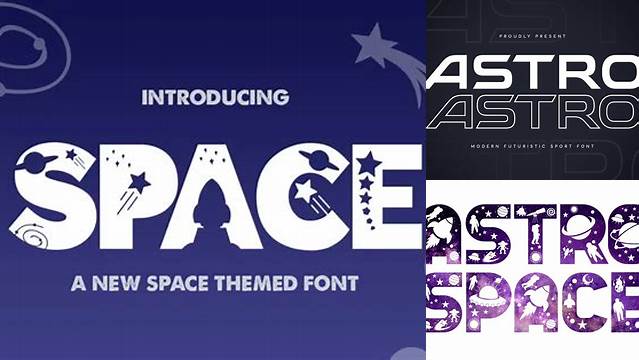
Astro Space Font Family: Free Download For Stellar Designs
Hey design enthusiasts! Are you on the lookout for a font that's out of this world? Look no further! The Astro Space font family is here to take your projects to cosmic heights. This font is not just a typeface; it's a journey through the stars, a visual experience that can transform your designs from ordinary to extraordinary. In this article, we'll dive deep into what makes the Astro Space font family so special, where you can download it for free, and how you can use it to create stunning visuals. So, buckle up and get ready for a stellar adventure in typography!
What Makes the Astro Space Font Family Unique?
When we talk about Astro Space font family, we're not just talking about another font; we're talking about a design tool that brings a unique flavor to your creative projects. But what exactly makes this font family so special? Let's break it down, guys. First off, the design itself is heavily inspired by space and astronomy. Think sleek lines, futuristic curves, and a touch of the unknown – that's Astro Space in a nutshell. It’s like the font designers looked up at the night sky and decided to capture the mystery and beauty of the cosmos in a typeface. This makes it perfect for projects that need a modern, sci-fi, or even a slightly mysterious vibe. Imagine using it for a video game title, a tech startup's website, or even a book cover for a science fiction novel. The possibilities are endless!
But it's not just about the aesthetic appeal. The Astro Space font family often includes multiple weights and styles. This means you're not stuck with just one look. You can play around with bold, italic, and regular versions to create contrast and hierarchy in your designs. This versatility is super important because it allows you to use the font in various contexts, from headlines to body text. You want a font that can adapt to your needs, right? Plus, a well-designed font family pays attention to the details – things like kerning (the spacing between letters) and legibility. Astro Space fonts are usually crafted to ensure they look good and are easy to read, whether they're displayed on a screen or printed on paper. This attention to detail is what separates a good font from a great one. And let's be honest, a font that looks amazing but is hard to read is pretty much useless. So, when you're choosing a font, especially one with a unique style like Astro Space, you want to make sure it's both visually striking and functionally sound. That’s the sweet spot where design magic happens!
How to Use Astro Space Font Family in Your Designs
Alright, you've got your hands on the Astro Space font family – congrats! Now comes the fun part: actually using it in your designs. But how do you make the most of this stellar typeface? Let's dive into some tips and tricks to help you create visually stunning projects. First off, think about the overall tone and message you want to convey. The Astro Space font, with its futuristic and slightly edgy vibe, is perfect for projects that need a modern or sci-fi feel. Think tech startups, video games, book covers, and even event posters. But that doesn't mean you can't use it in other contexts! The key is to match the font's personality with your project's theme. Imagine you're designing a website for a tech company. Using the Astro Space font for headlines and key call-to-actions can instantly give your site a cutting-edge look. The font's clean lines and geometric shapes communicate innovation and forward-thinking. But you wouldn't necessarily want to use it for the body text, as its unique style might make it a bit hard to read in large blocks. That's where font pairing comes in.
Pairing your Astro Space font with a more legible sans-serif or serif font for body text can create a balanced and professional look. Think of it like this: your headline font is the star of the show, and your body text font is the supporting cast. They need to work together to create a harmonious visual experience. For example, you could pair a bold Astro Space font with a classic font like Roboto or Open Sans for body text. This creates a nice contrast while ensuring readability. Another important aspect is color. The colors you choose can either enhance or clash with your font's style. For the Astro Space font, colors like electric blue, neon green, and metallic silver can really amplify its futuristic feel. But don't be afraid to experiment with other color palettes as well. Sometimes, unexpected combinations can lead to amazing results. Just make sure your color choices are deliberate and support the overall message of your design. And last but not least, don't overuse the font! While the Astro Space font is undoubtedly eye-catching, using it for every single element in your design can be overwhelming. Less is often more. Use it strategically for headlines, logos, and other key elements, and let simpler fonts handle the rest. This way, you'll create a design that's both visually striking and easy to digest. So go ahead, experiment, and have fun with your new Astro Space font! The cosmos is the limit!
Examples of Stellar Designs Using Astro Space Fonts
Let's get inspired, guys! Seeing how the Astro Space font family is used in real-world designs can spark some amazing ideas for your own projects. So, let's dive into some examples of stellar designs that showcase the versatility and impact of this typeface. One common application is in branding for tech companies and startups. Imagine a logo for a cutting-edge software company using a bold, futuristic Astro Space font. The sleek lines and geometric shapes instantly communicate innovation and a forward-thinking approach. This font can also be used in website headers, creating a consistent visual identity across the brand. The key here is to use the font strategically, pairing it with clean layouts and a modern color palette to reinforce the tech-savvy vibe.
Another fantastic use case is in the gaming industry. Think about video game titles, promotional materials, and even in-game text. The Astro Space font's sci-fi aesthetic perfectly complements the immersive worlds and futuristic themes often found in games. A game title in a bold, slightly distorted Astro Space font can instantly grab a player's attention. Similarly, using the font for in-game menus and dialogue can enhance the overall gaming experience. But it's not just about looking cool; it's also about readability. So, when using Astro Space fonts in games, it's important to ensure the text is clear and easy to read, even in fast-paced action sequences. Book covers are another area where Astro Space fonts can really shine. Science fiction and fantasy novels, in particular, can benefit from the font's otherworldly vibe. A well-designed book cover needs to capture the essence of the story and entice readers to pick it up. An Astro Space font, paired with striking imagery and a captivating color scheme, can do just that. Whether it's a sprawling space opera or a dystopian thriller, the right font can set the tone and draw readers into the narrative. Event posters and flyers are another great canvas for Astro Space fonts. Think about a poster for a tech conference, a music festival, or even a space-themed party. The font's bold and modern look can make your event stand out and attract attention. But remember, the design needs to be balanced. Don't overcrowd the poster with too much text or imagery. Let the font breathe and use whitespace effectively to create a visually appealing composition. These are just a few examples, guys, but the possibilities are endless. The Astro Space font family is a versatile tool that can elevate your designs to new heights. So, get creative, experiment, and let your imagination run wild!
Conclusion: Elevate Your Designs with Astro Space
So, there you have it, guys! The Astro Space font family is a fantastic choice for anyone looking to add a touch of futuristic flair and cosmic charm to their designs. From its unique aesthetic inspired by space and astronomy to its versatility in various design contexts, this font is a true game-changer. We've explored what makes it special, where you can find it for free, and how to use it effectively in your projects. We've even looked at some stellar examples to get your creative juices flowing. But the real magic happens when you start experimenting and making the font your own.
Remember, design is all about expressing your vision and connecting with your audience. The Astro Space font is just one tool in your toolkit, but it's a powerful one. Whether you're designing a logo for a tech startup, creating a book cover for a sci-fi novel, or crafting a website for a futuristic brand, this font can help you make a statement. So, go ahead, download the Astro Space font, and start exploring the endless possibilities. Don't be afraid to try new things, mix and match it with other fonts, and play with colors and layouts. The key is to have fun and let your creativity shine. And who knows, you might just create the next design masterpiece! So, thank you for joining me on this cosmic journey through the Astro Space font family. I hope this article has inspired you to elevate your designs and reach for the stars. Happy designing, everyone!